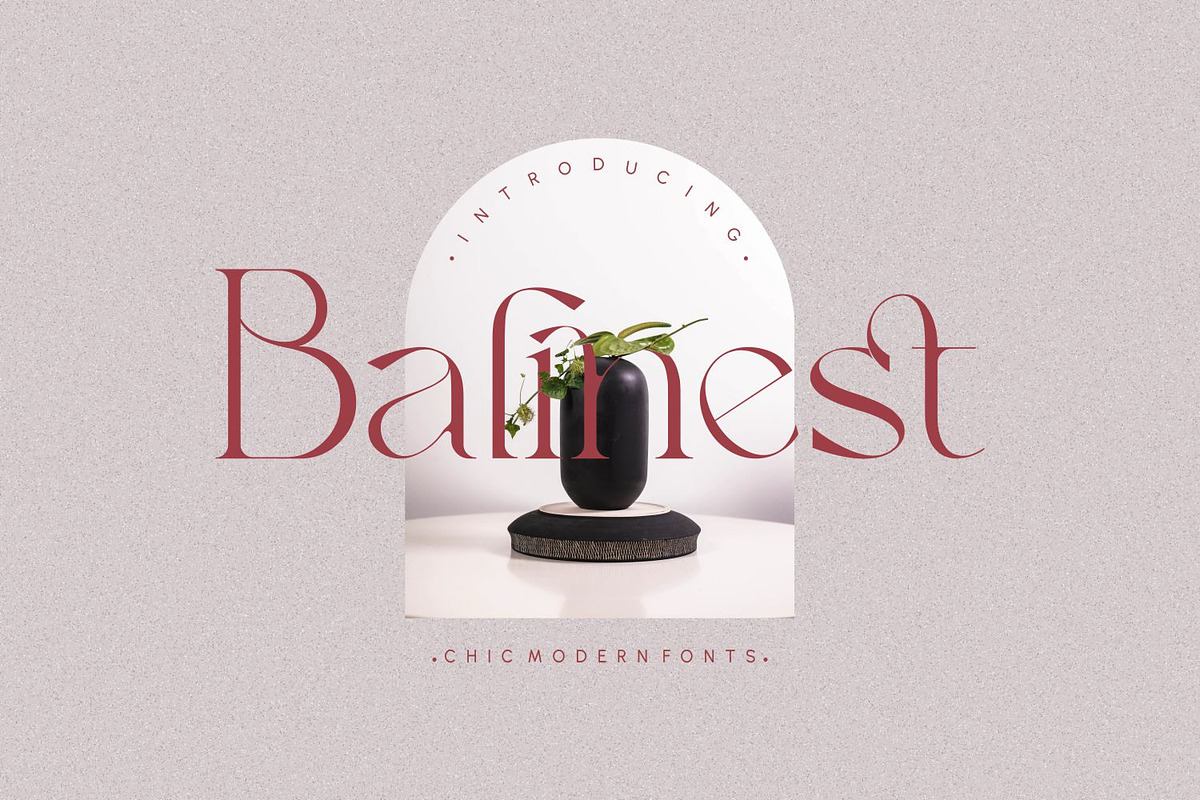
Balinest – Chic Modern Font Free Download is a stylish and elegant typeface designed for high-end branding, fashion editorials, beauty packaging, and lifestyle content. With its refined curves and minimalist letterforms, Balinest delivers a sophisticated aesthetic that feels both modern and timeless.
This font features a perfect blend of simplicity and grace, making it ideal for logos, headlines, wedding invitations, and social media graphics. It includes uppercase and lowercase letters, punctuation, multilingual support, and works seamlessly on both Mac and Windows platforms.